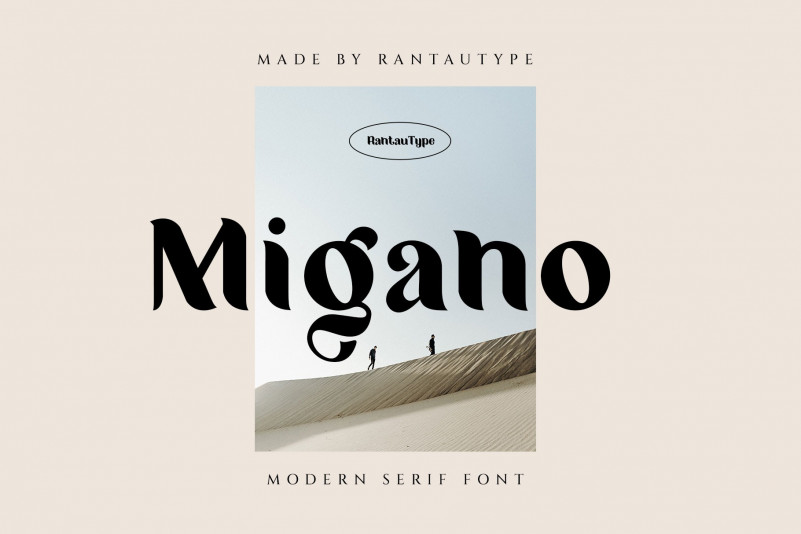
Migano Sans Serif Font
This is a new modern sans serif display typeface manufactured by Rantautype. Migano is classy, bold upper and lowercase typeface that looks incredible in both large and small settings. Migano is perfect for branding, logos, invitation, masterheads and more. Also i make separate in reguler and ligature so you can choice want to use ligature or not. Upper and lowercase letters are included, more alternate, numerals and punctuation. (See preview image for the full character map.) Features